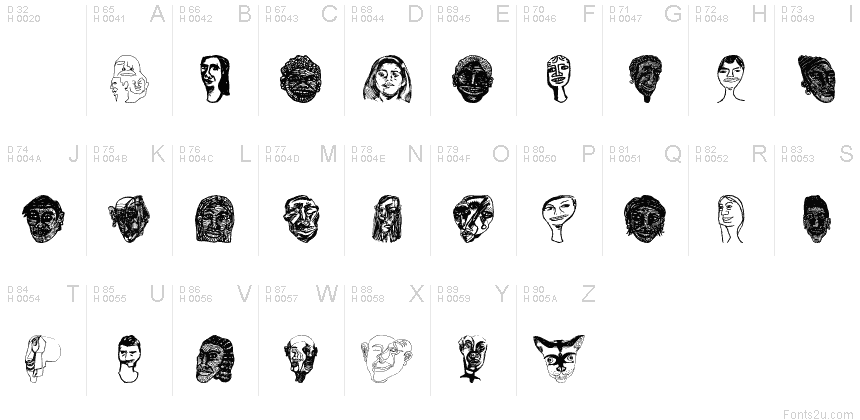
Faces Plain
Faces Plain font is a free illustrated dingbat typeface that turns the Faces family into a crowd of inky, hand-carved heads. Each glyph feels like a quick, nervous sketch-thick black strokes, uneven contours, and expressive features that look pulled straight from a woodcut or linocut print. There’s a raw, tactile energy here, as if the ink is still drying, that instantly adds character and a bit of oddball charm to any layout.
Using Faces Plain font, you can swap generic icons for a chorus of quirky human faces on gig posters, zines, album art, sketchbook covers, stickers, and experimental branding. The irregular forms create a bold visual rhythm when scattered or repeated, so it works beautifully as a pattern or as a single focal graphic. This free font pairs well with a clean geometric sans set small, letting the wild, handmade faces stay loud and unmistakable.